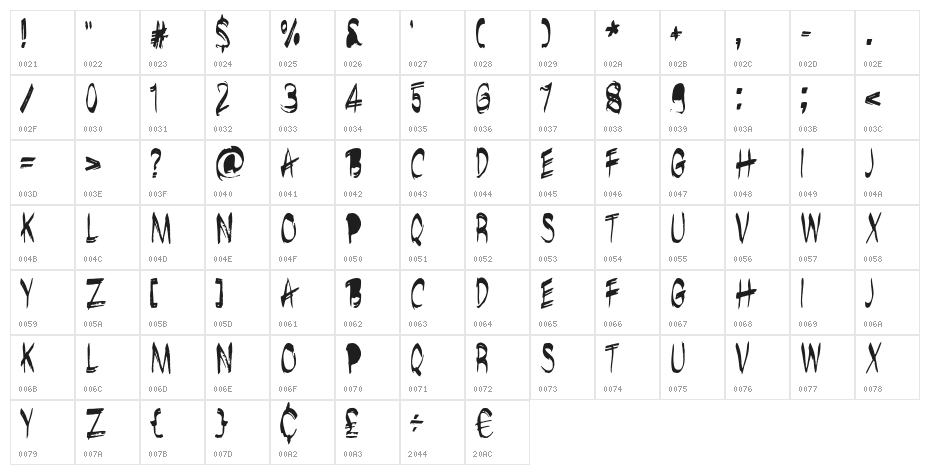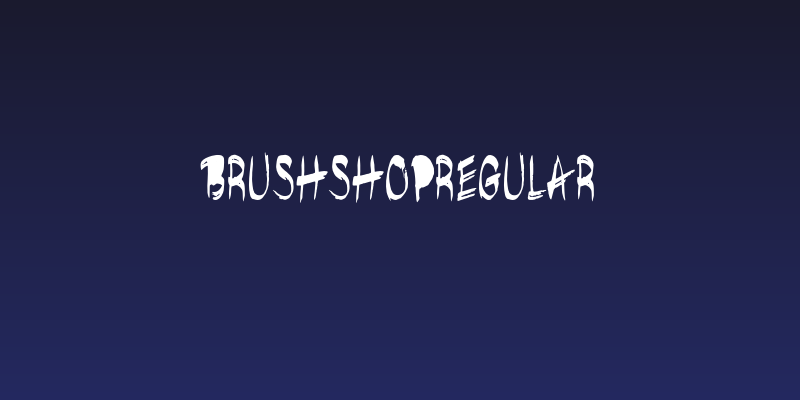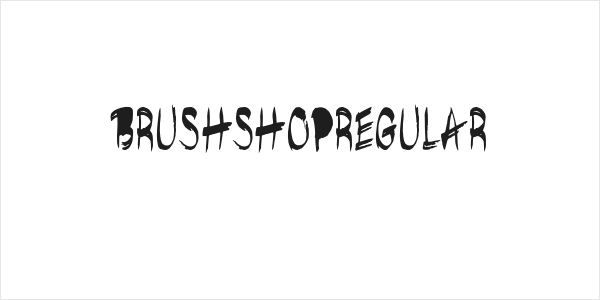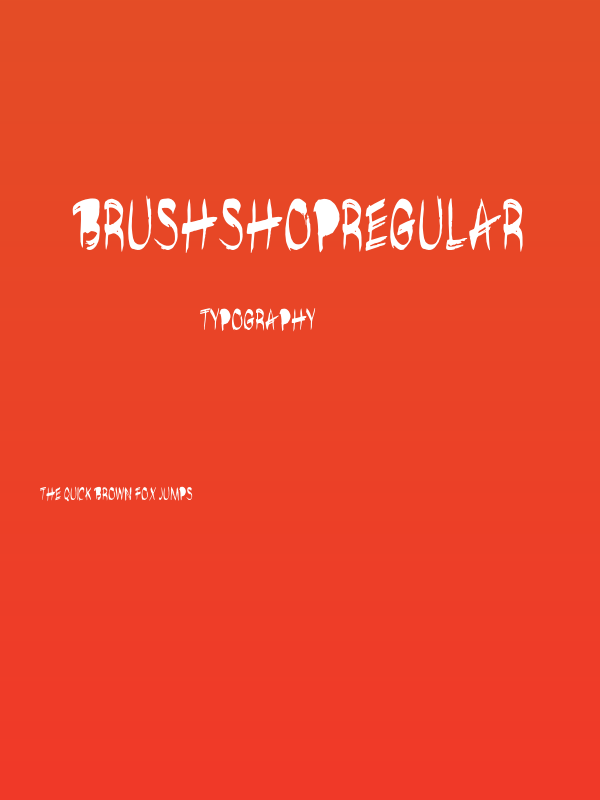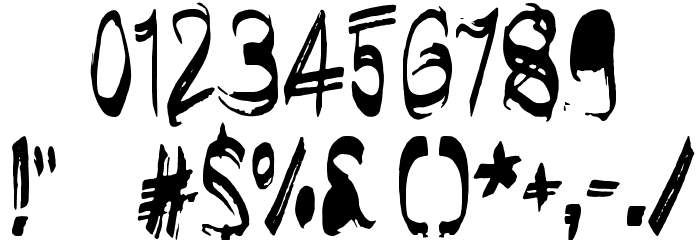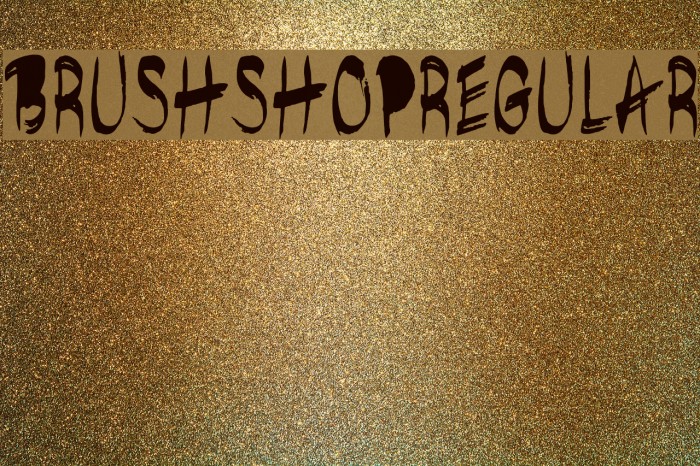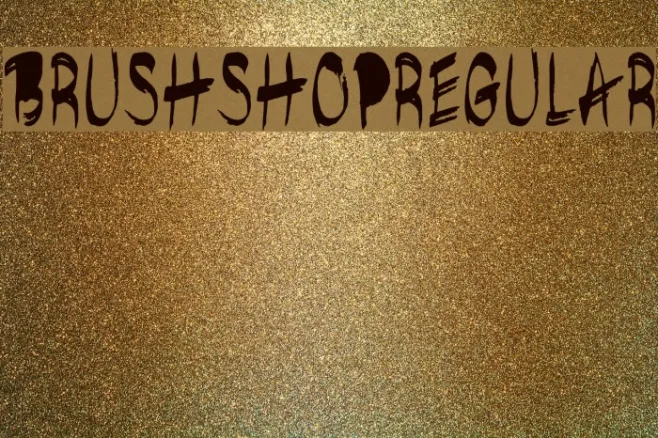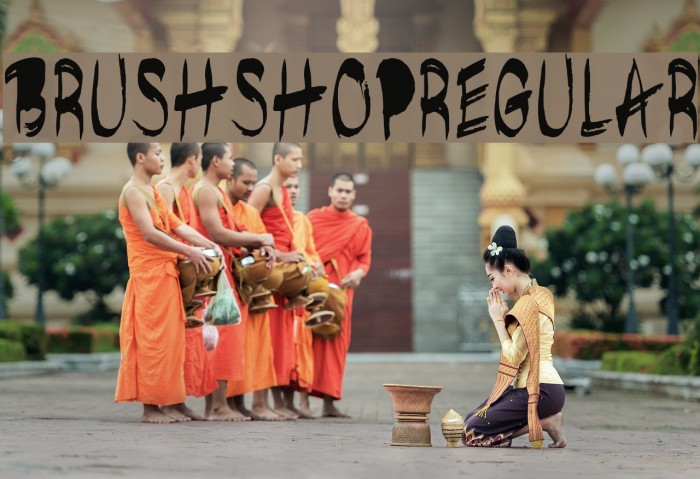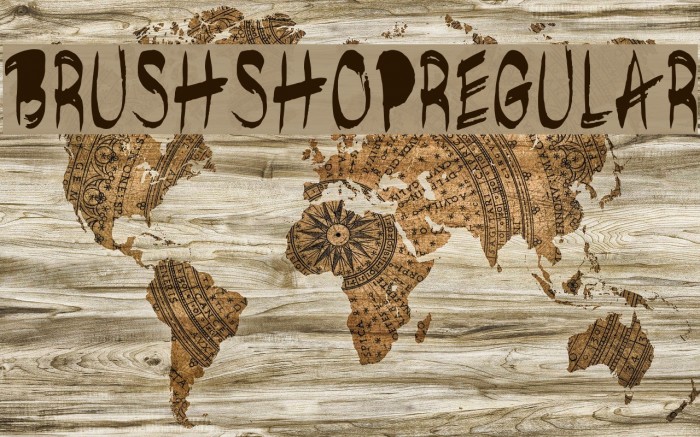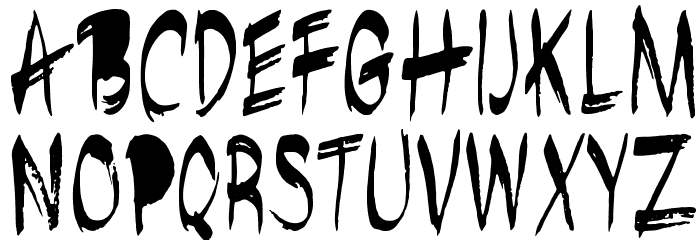
brushshopregular Font
brushshopregular Description
This font exudes a bold and expressive style, reminiscent of brush strokes with a raw and dynamic energy. The characters are crafted with a hand-painted appearance, featuring irregular edges and varying thicknesses that add a sense of movement and spontaneity. The uppercase and lowercase letters maintain a consistent artistic flair, while the numerals and special characters complement the overall aesthetic with their unique, handcrafted look. This font is ideal for projects that require a touch of creativity and individuality, making it perfect for artistic and expressive designs.
| Proposed Projects | Ideal for posters, album covers, branding, and creative projects requiring a bold, artistic touch. |